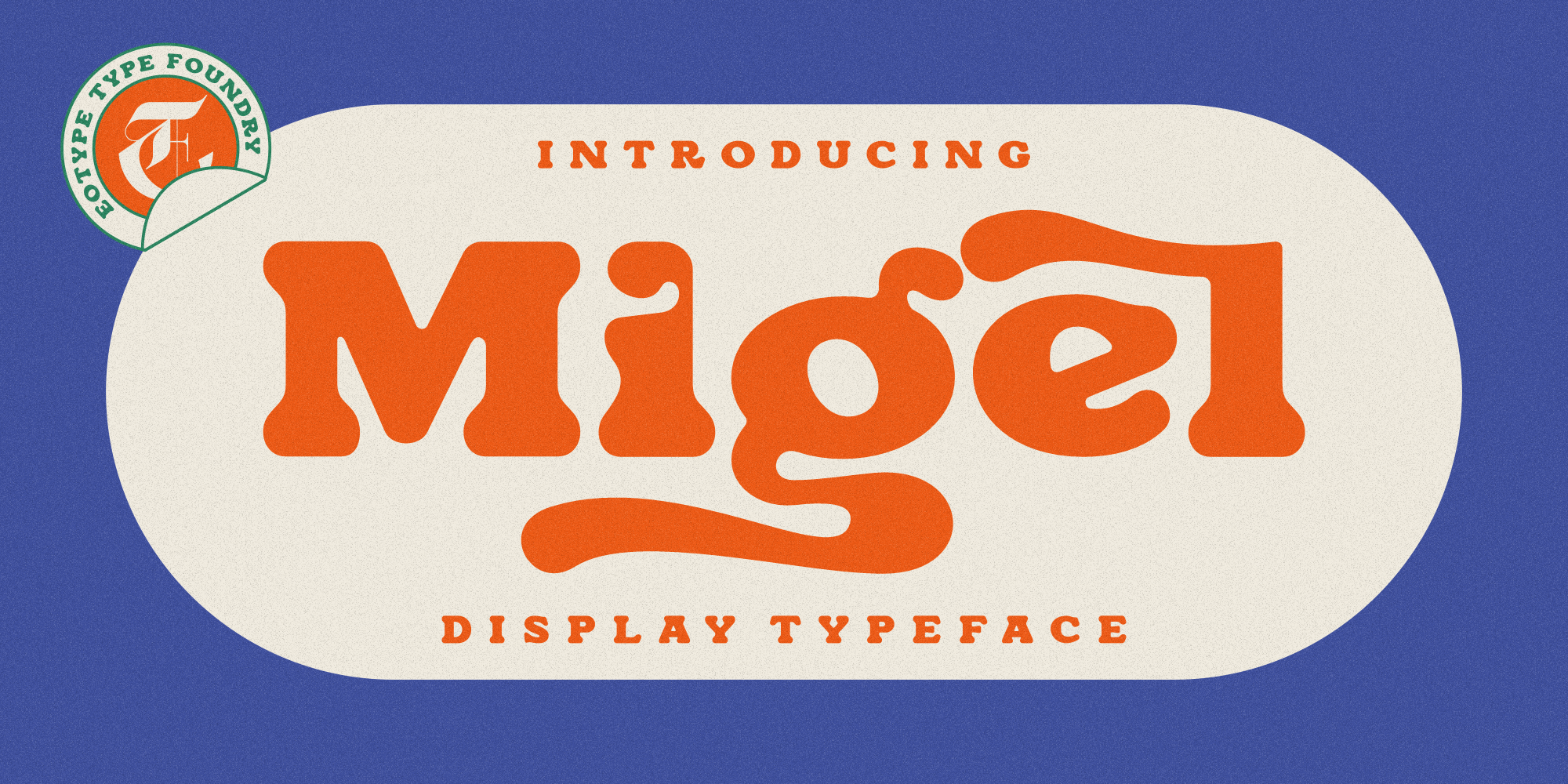
Migel Font is perfect for creative studio branding, contemporary art exhibitions, modern magazine layouts, architectural portfolios, cultural event posters, design agency websites, innovative product packaging, artistic book covers, gallery invitations, creative workshops, and any project that requires distinctive, artistic typography with contemporary flair.
What makes Migel Font exciting is its unique combination of artistic expression and practical functionality. This distinctive typeface features carefully crafted letterforms with subtle quirks and personality that create visual interest without compromising readability. The font's balanced character proportions and thoughtful design details make it an ideal choice for creative professionals seeking to convey originality, artistic vision, and modern sophistication while ensuring clear communication across various design applications.
Migel Font family includes multiple weights and stylistic variations, offering designers comprehensive options for creating dynamic visual hierarchies. The font family typically features light, regular, medium, and bold weights, along with alternate character sets and special glyphs that provide flexibility for creative experimentation and personalized typographic expressions.
Whether you're developing brand identities for creative industries, designing editorial publications, or creating artistic campaigns, Migel Font Free Download provides the contemporary aesthetic and creative potential that innovative design projects demand. Its versatile nature makes it suitable for both digital and print applications, ensuring consistent brand expression across all creative touchpoints.
The font's distinctive personality and excellent legibility make it a valuable addition to any creative designer's toolkit. With Migel Font, your projects will communicate artistic sophistication, creative intelligence, and contemporary vision that resonates with culturally aware audiences.